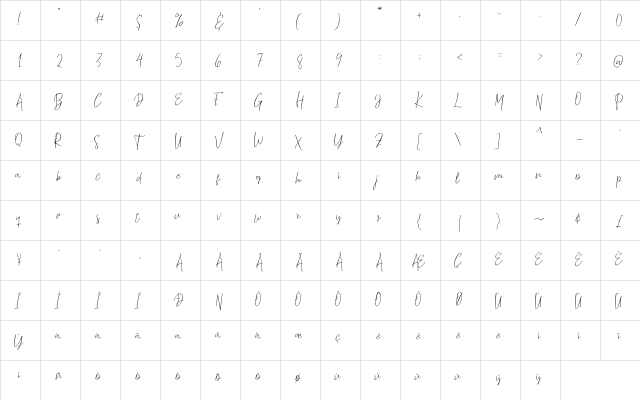
Thousand Script Regular
| Foundry | Ferdiansyah_PointlabSTD |
| Designer | Ferdiansyah_PointlabSTD |
Design Context for Thousand Script Typeface
Thousand Script brings a calligraphic fluidity to the page — its connecting strokes and expressive curves give it an unmistakably human quality.
Font Pairing: Combine Thousand Script with a simple geometric sans for maximum contrast — the tension between flowing curves and clean structure is a classic typographic pairing.
Pro Tip: Use Thousand Script for short runs of text — names, titles, or taglines. Extended body copy in script faces tires the eye quickly.